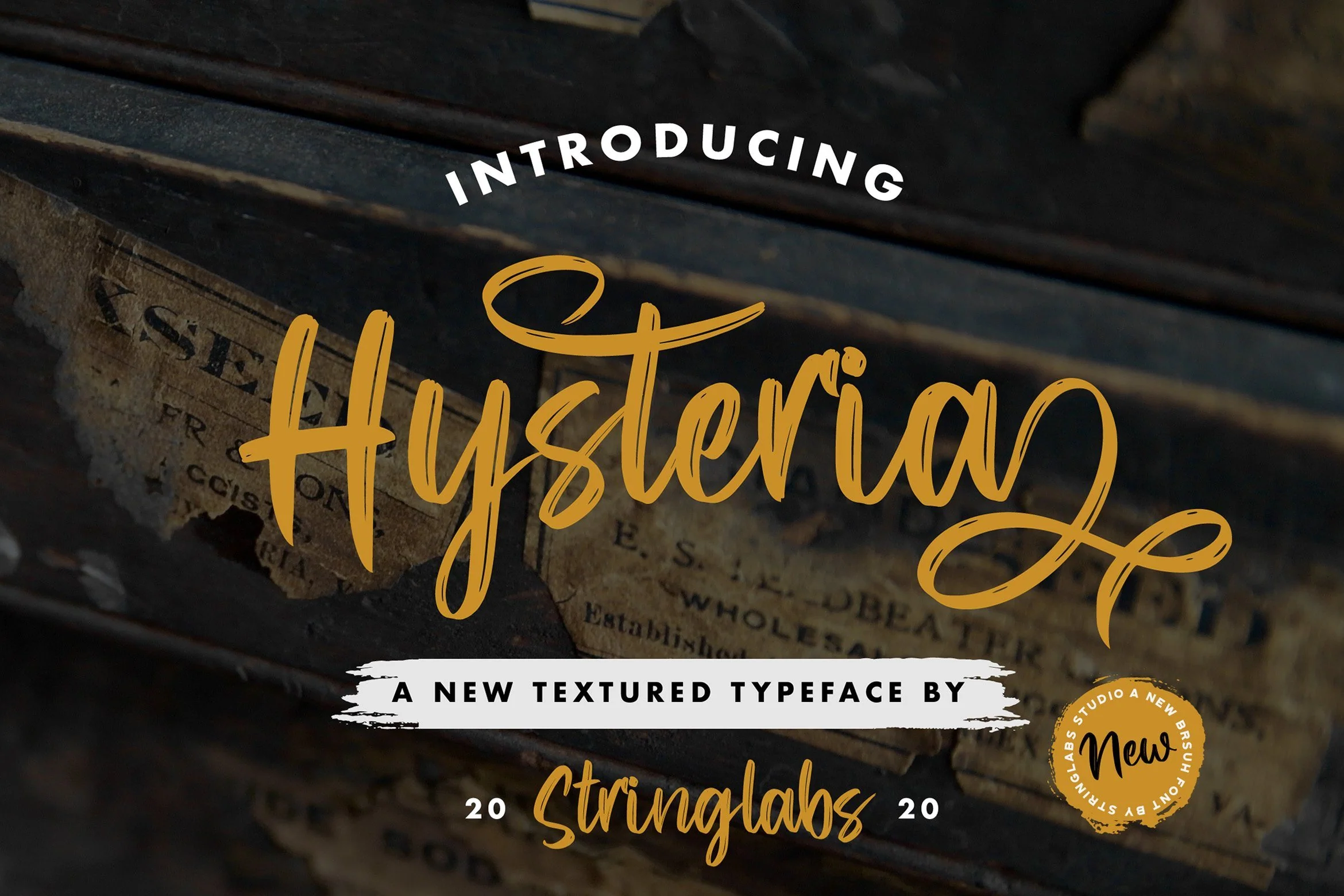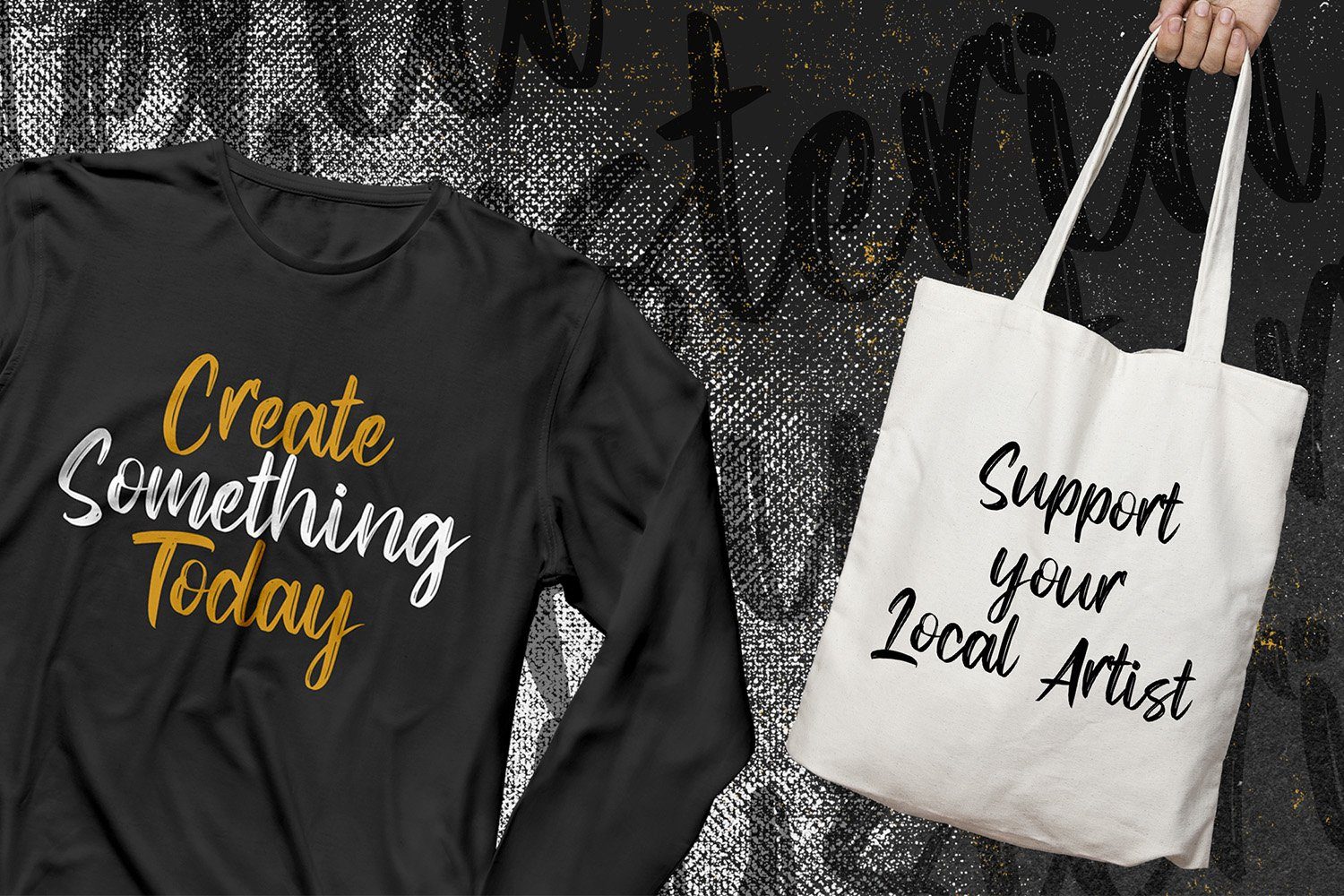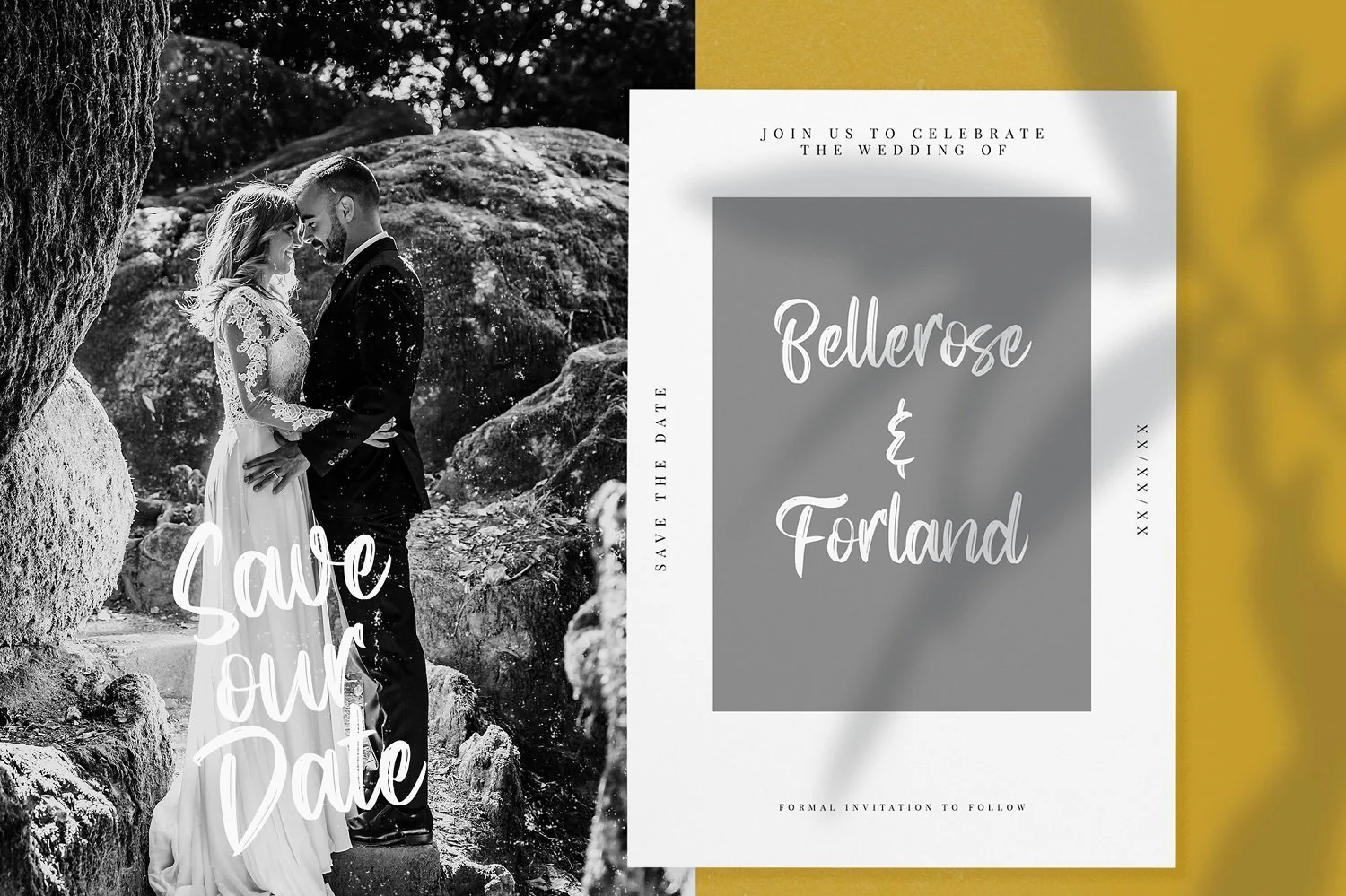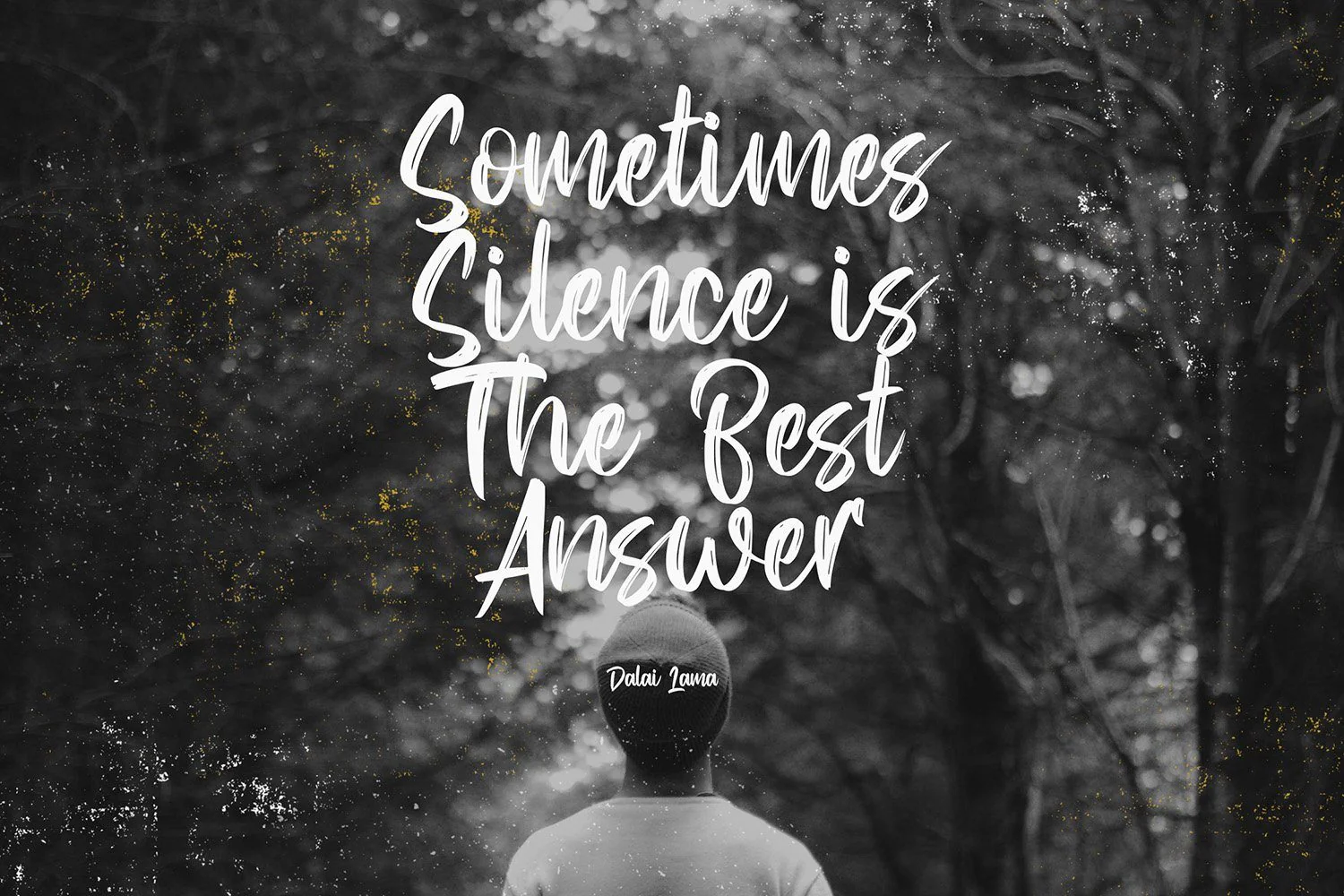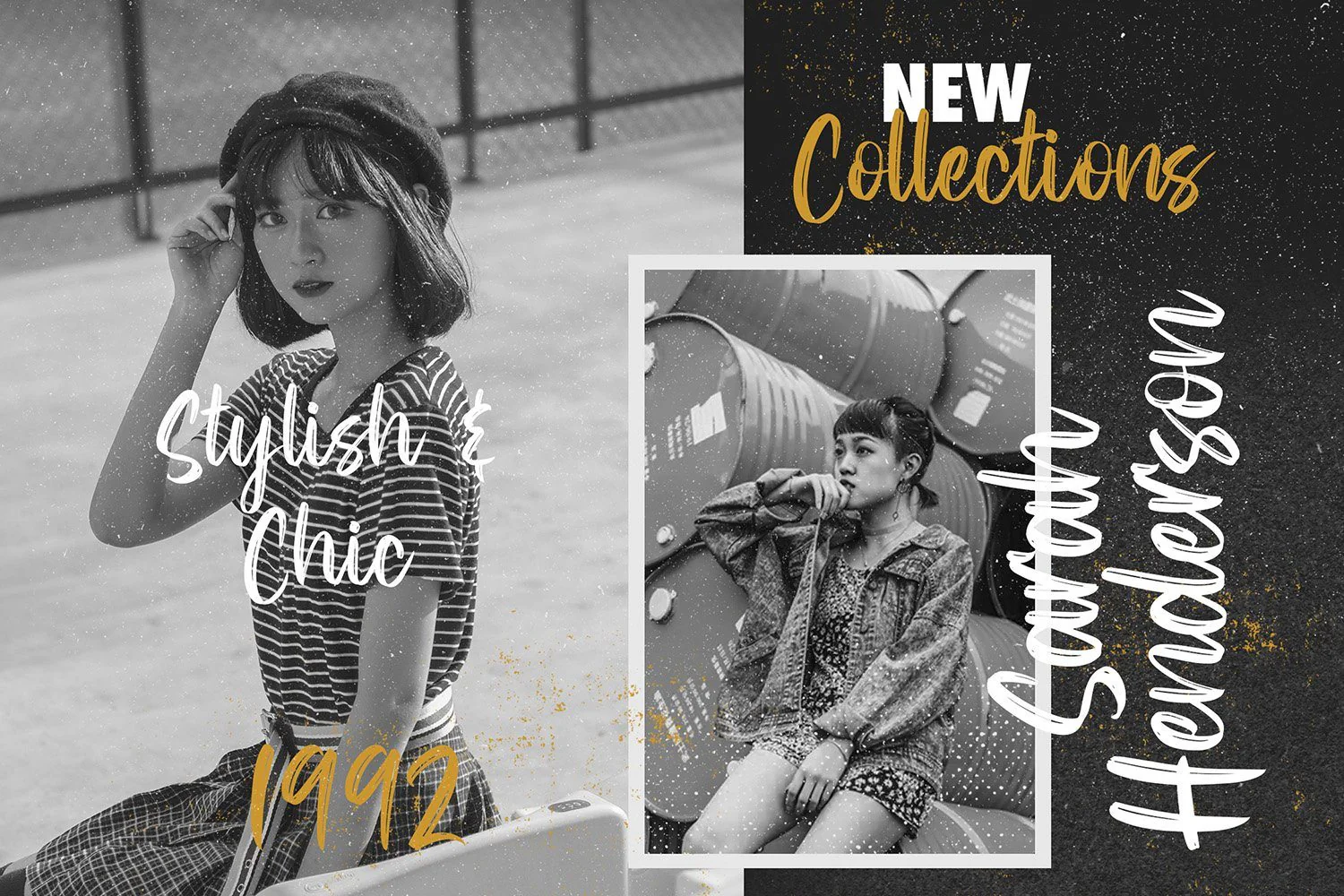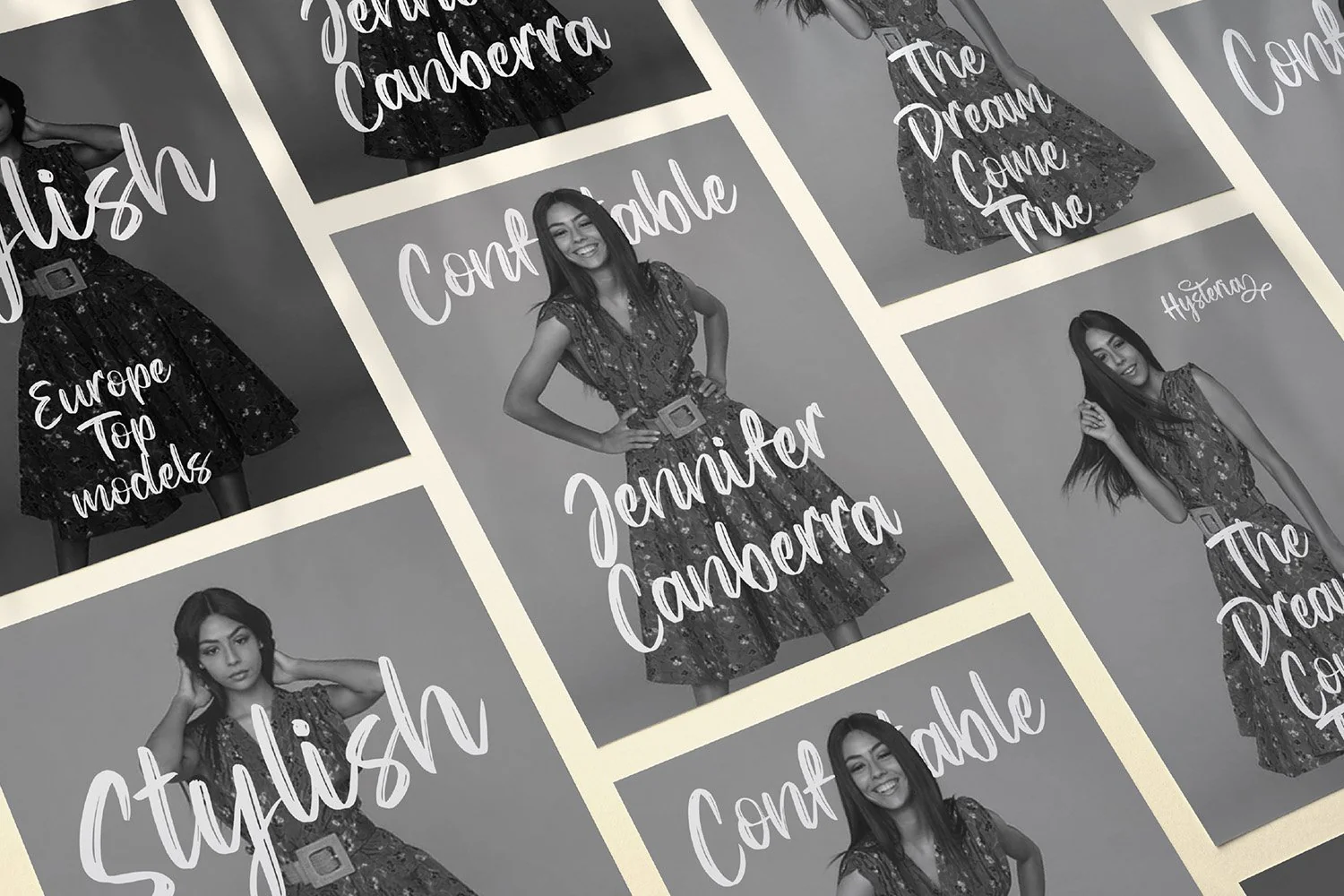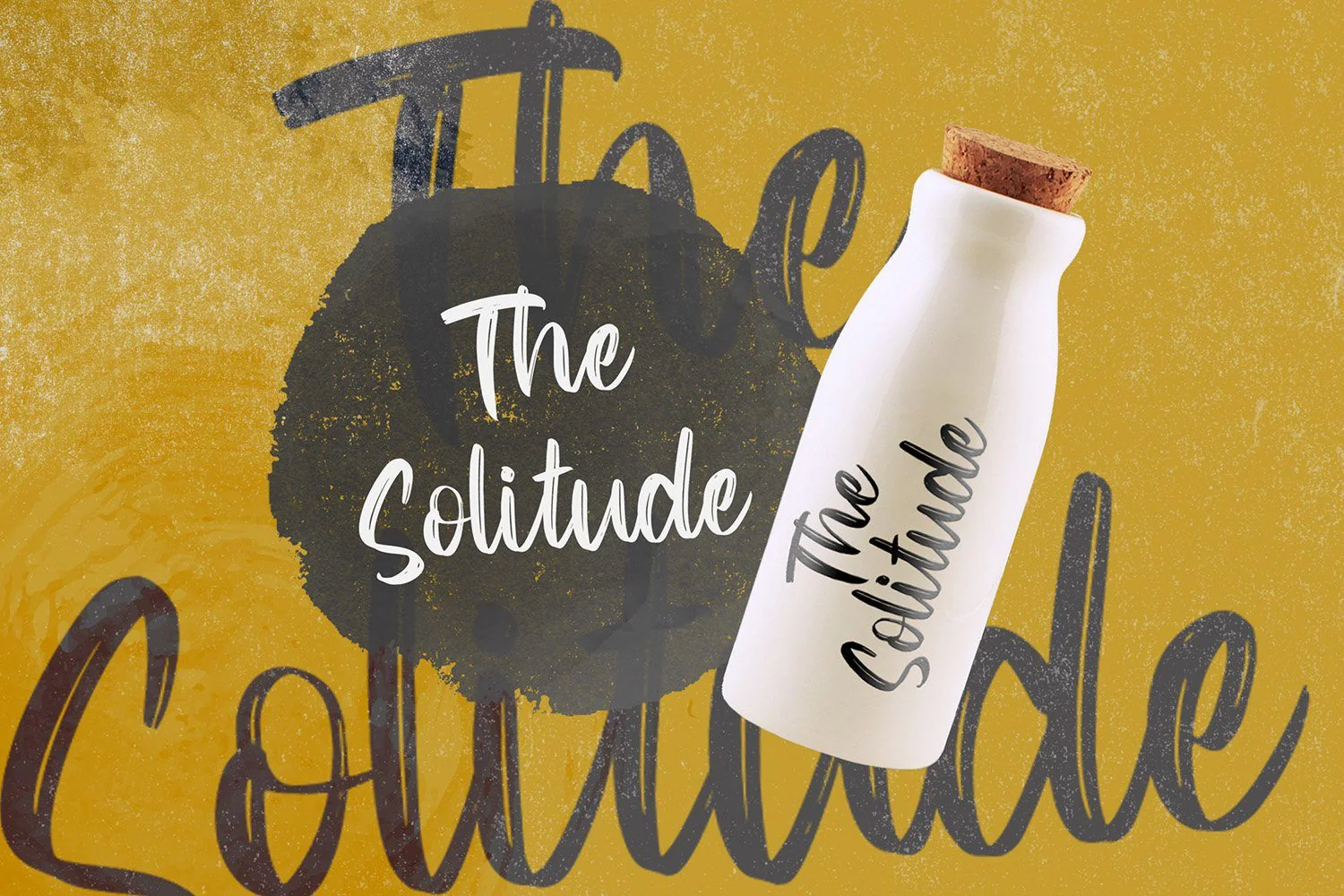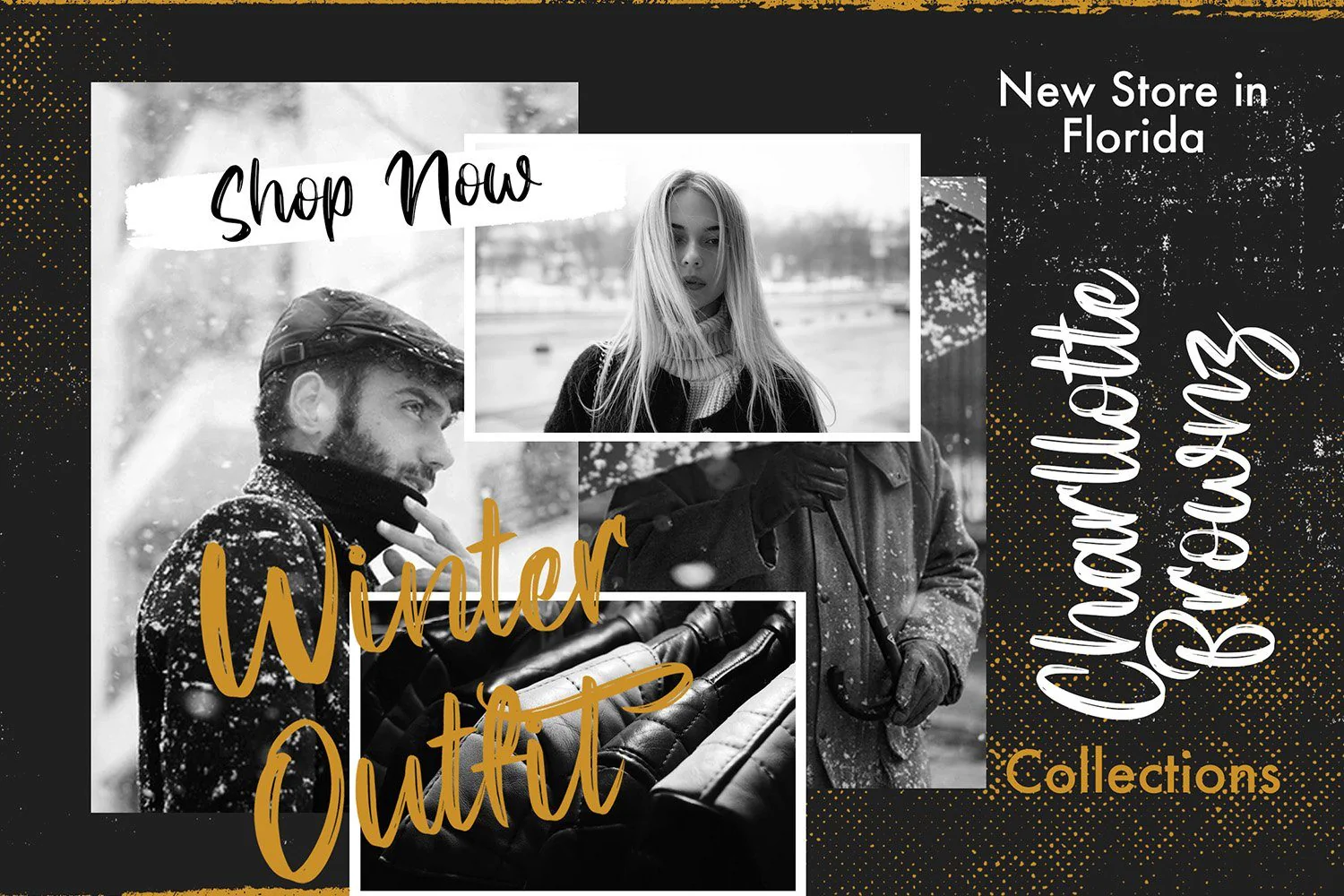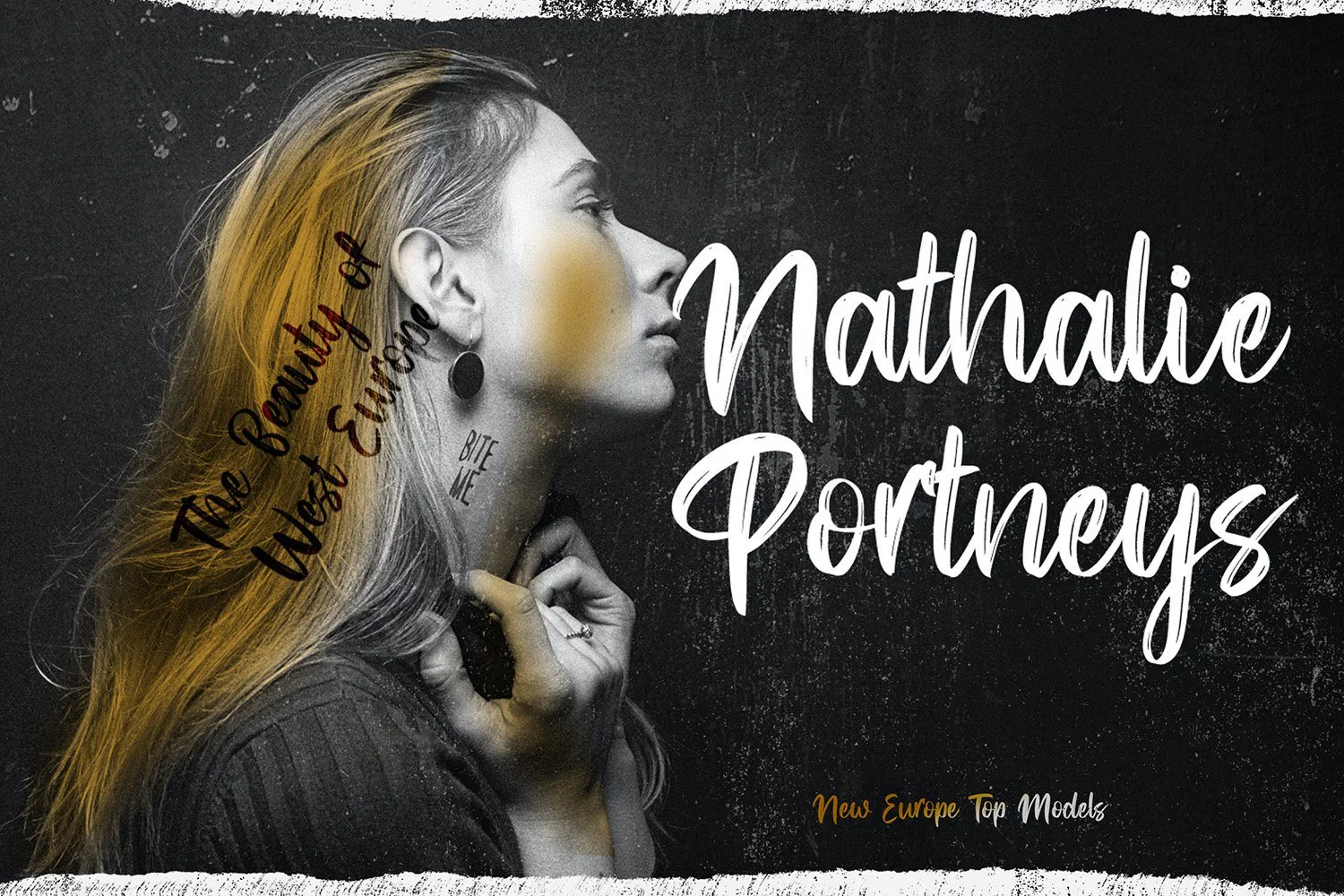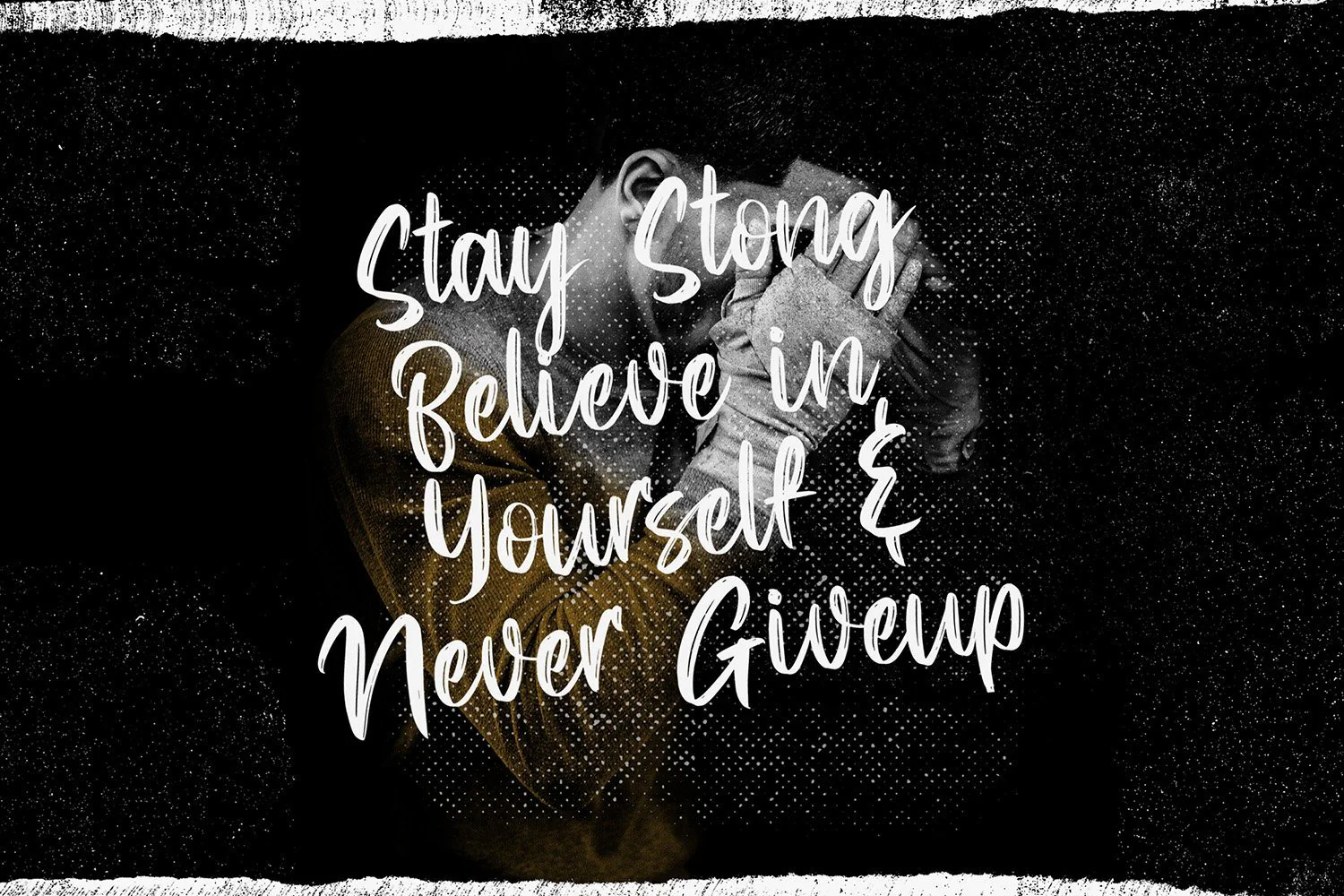
Hysteria - Stylish Script Font
Introducing Hysteria - Stylish Script Font
Hysteria is a Script Font with Stylish Textured Brush Style. The Hysteria font made with digital brush pen strokes that making this font look authentic. This font is perfect for fashion brand, wedding invitation, business card, logo brand, signature, and then calligraphy.
This Font contains Classy, Elegant, Creative, Cool and has a Unique Concept.